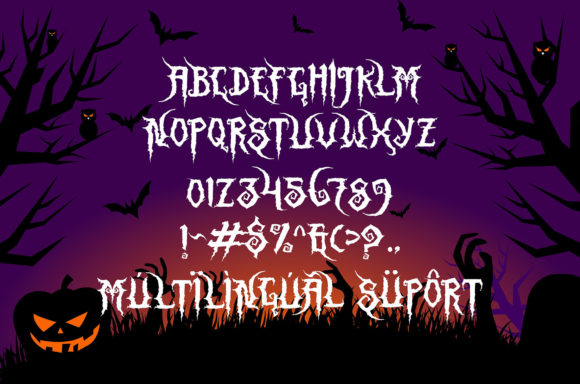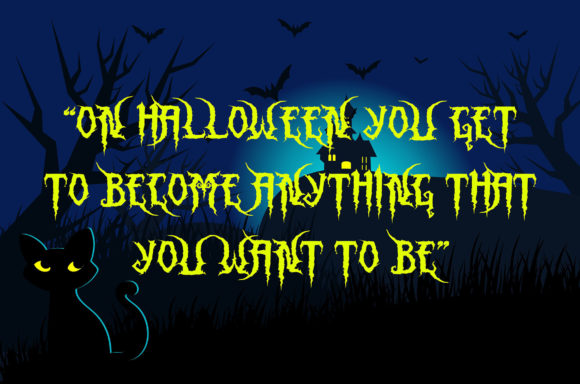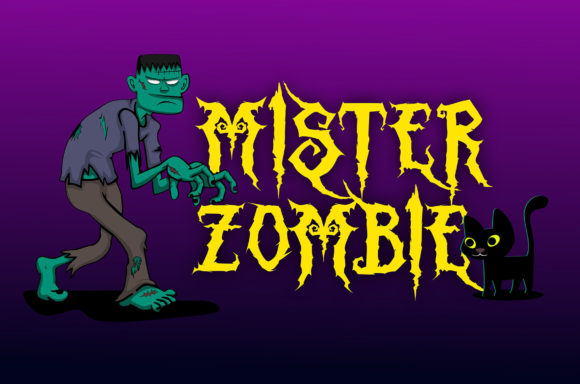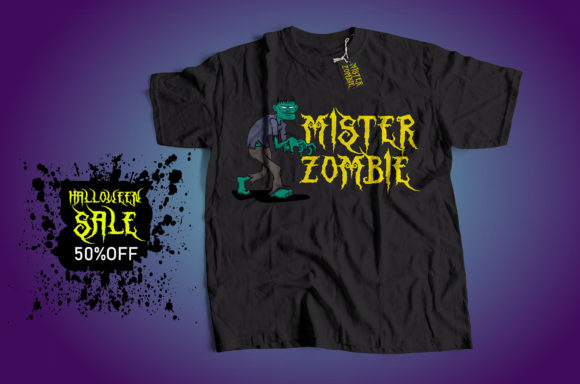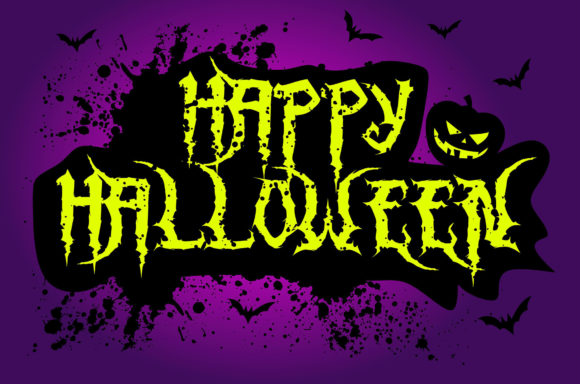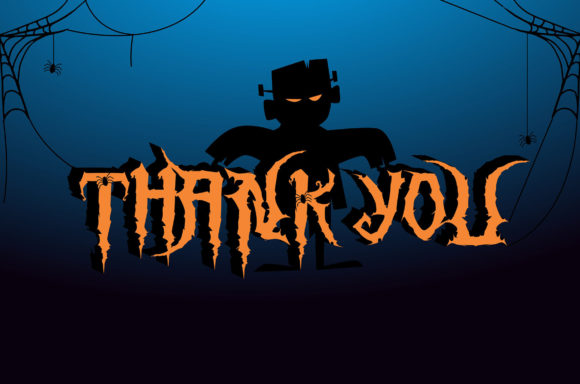
Introduction to Night Franklin Font Font
Fonts play a crucial role in design, and the Night Franklin Font font is a typeface that brings both character and versatility to any project. Whether you’re working on a branding project, a website, or a print design, the Night Franklin Font font offers a unique style that can elevate your work.
Night Franklin is a cool, spooky and dramatic display font.
Add it to each of your Halloween design or October party The only limit is your imagination.
Key Features of Night Franklin Font Font
Why Choose Night Franklin Font Font?
The Night Franklin Font font is more than just a typeface – it’s a design tool that helps you communicate your message with style and clarity. Its unique character set and versatile design make it suitable for a wide range of applications, from elegant invitations to bold headlines.
With its carefully crafted letterforms and balanced proportions, the Night Franklin Font font ensures readability and visual appeal across all mediums.
What makes Night Franklin Font font special?
The Night Franklin Font font stands out with its unique design, exceptional readability, and versatility across various design applications.